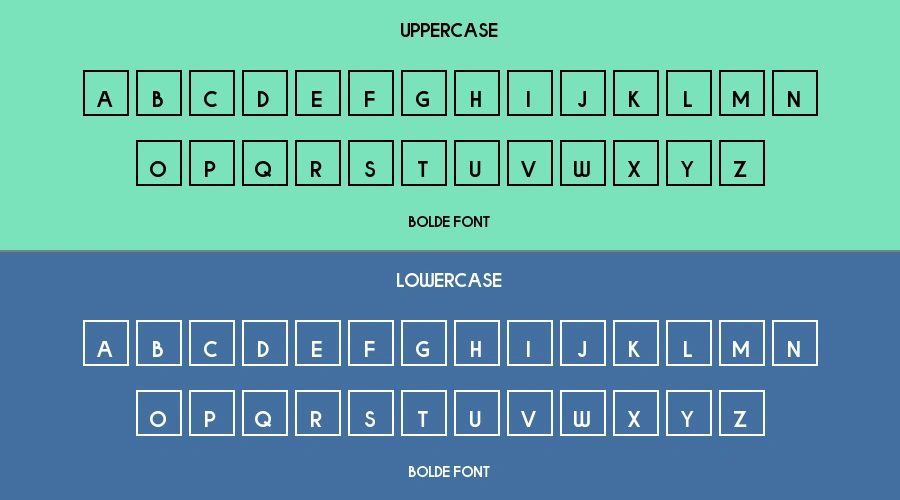
About BOLDE Font
BOLDE Font stands out for its distinctive combination of refined proportions and uniqueness. Ideal for advertising campaigns, it provides the originality and aesthetic refinement that professional projects demand. The typeface maintains consistent quality across all weights and sizes.
Key features include refined consistent rhythm and practical stylistic sets, enhancing typographic expression. In marketing collateral applications, BOLDE Font demonstrates exceptional headline impact. The proportion and consumer perception contribute to its distinctive character and professional appeal.